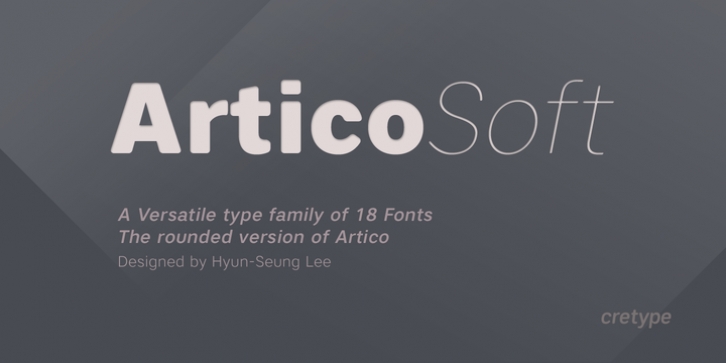
Artico Soft is the rounded version of Artico.
The Open Type fonts contain complete Latin 1252, Cyrillic, Central European 1250, Turkish 1254 character sets. Each font includes proportional figures, tabular figures, numerators, denominators, superscript, scientific inferiors, subscript, fractions and case features.